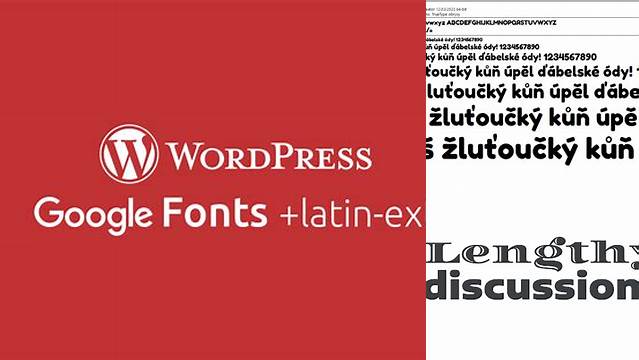
Google Fonts: Latin Extended Guide
Hey guys! Ever wondered about those cool fonts you see online and how they support different languages? Today, we're diving deep into Google Fonts and specifically looking at the Latin Extended character set. This is super important if you want your website or project to be truly global and accessible. Let's get started!
What are Google Fonts?
Before we jump into the Latin Extended stuff, let’s quickly talk about what Google Fonts actually are. Google Fonts is a library of over a thousand free, open-source font families. This means you can use these fonts for anything – your website, your presentations, your YouTube thumbnails, absolutely anything! The best part? They're super easy to use. You can either download them and install them on your computer, or you can link to them directly from Google's servers, meaning your website visitors don’t even need to have the fonts installed on their machines. It’s all done seamlessly in the background, making your website look awesome without slowing it down. Google Fonts provides a huge selection of typefaces, from classic serif fonts like Roboto Serif and Oswald, to modern sans-serif options like Open Sans and Lato, and even unique display fonts for special projects. Finding the right font can make a massive difference in how your design feels and communicates, so understanding your options is crucial. Moreover, Google Fonts is constantly being updated with new fonts and features, making it a dynamic resource for designers and developers alike. They are committed to making typography accessible to everyone, which is why it's such a popular choice in the design community.
Why is Latin Extended Important?
Okay, so we know what Google Fonts is, but why should we care about Latin Extended? Well, the basic Latin character set only covers the English alphabet and some punctuation. Latin Extended goes way beyond that. It includes characters used in a bunch of European languages like French, Spanish, German, Polish, and many more. Imagine you're building a website and you want to reach an audience in these countries. If you don't use Latin Extended, you might end up with weird boxes or question marks instead of letters like é, à , ç, or ñ. Not a good look, right? Using fonts that support Latin Extended ensures your text displays correctly for millions of people around the world, making your content accessible and professional. Latin Extended is essentially a set of additional characters and diacritics (those little marks above or below letters) that are essential for many languages. These diacritics change the pronunciation of the letters and are crucial for correct spelling and grammar. So, if you're serious about creating content that resonates with a global audience, ensuring your fonts support Latin Extended is non-negotiable. Think of it as showing respect for different languages and cultures, which can significantly boost your brand's credibility and reach.
Understanding Character Sets
To really grasp Latin Extended, we need to talk about character sets in general. A character set is simply a collection of characters – letters, numbers, symbols, and punctuation – that a font supports. Think of it like a toolbox; each tool (character) serves a specific purpose. The basic Latin character set, also known as ASCII, includes the English alphabet, numbers 0-9, and some common symbols. But that's just the tip of the iceberg. Latin Extended adds a whole bunch of extra characters to this set, allowing you to write in many different languages. Understanding character sets helps you choose the right fonts for your project. If you're only writing in English, a basic Latin font might be fine. But if you need to support multiple languages, you'll definitely want to look for fonts with Latin Extended support. Character sets are the foundation of how text is displayed on computers and the internet. Without them, we wouldn't be able to communicate effectively across different languages and platforms. Different encoding standards, such as UTF-8, play a crucial role in how these character sets are implemented and displayed. UTF-8 is a widely used encoding standard that supports a vast range of characters, including those in the Latin Extended set, making it the go-to choice for web developers who want to ensure their content is accessible globally.
Latin Extended A vs. Latin Extended B
Okay, things might get a little technical here, but stick with me! Latin Extended isn't just one big thing; it's actually divided into different subsets, mainly Latin Extended-A and Latin Extended-B. Latin Extended-A is the more common of the two, and it includes characters used in most Western and Central European languages, like those mentioned earlier (French, Spanish, German, Polish, etc.). Latin Extended-B is less common and includes characters used in some Eastern European languages, as well as some historical and less widely used alphabets. So, which one do you need? For most projects, Latin Extended-A will be sufficient. But if you're working with a language that uses characters from Latin Extended-B, you'll need to make sure your font supports it. It’s always a good idea to check the specific requirements of the languages you're targeting to ensure you're using the correct character set. Understanding the differences between Latin Extended-A and Latin Extended-B can save you a lot of headaches down the road. Imagine spending hours designing a website, only to realize that your font doesn't support a crucial character in one of the languages you need. That's why it's essential to do your research and choose fonts that cover the character sets you need from the outset. Many font providers, including Google Fonts, will clearly indicate which character sets a font supports, making it easier to make informed decisions.
How to Identify Google Fonts with Latin Extended Support
So, how do you actually find Google Fonts that support Latin Extended? It's pretty easy, thankfully! When you're browsing Google Fonts, you'll see a filter option called “Languages.” If you click on that, you’ll see a list of languages and character sets, including Latin Extended. Just check the box next to “Latin Extended,” and Google Fonts will filter the results to show you only fonts that support it. You can also click on a specific font and look at the “Character set” information to see exactly which characters it includes. This is a super handy feature because it saves you time and ensures you’re choosing fonts that will work for your needs. Remember, even if a font looks beautiful, it's useless if it doesn't support the characters you need. Take the time to check the character set support before you commit to a font. Another tip is to test the font with actual text in the languages you're targeting. Copy and paste some text into the font preview on Google Fonts to see how it looks. This will give you a real-world sense of whether the font is a good fit for your project and whether it handles the diacritics and special characters correctly. This hands-on approach can help you avoid potential issues and ensure your text displays perfectly across different languages.
Best Google Fonts for Latin Extended A
Alright, let's get to the fun part: which Google Fonts are actually great for Latin Extended-A? There are tons of amazing options, but here are a few of my personal favorites. First up, we have Roboto. It's a classic sans-serif font that's super versatile and readable, making it a great choice for body text. Then there’s Open Sans, another excellent sans-serif font that’s clean and modern. If you're looking for a serif font, Lora is a beautiful option that's perfect for headings or body text. Lato is another popular choice, known for its clean lines and readability, making it suitable for a wide range of projects. Finally, Montserrat is a bold and stylish sans-serif font that’s great for headlines and titles. These are just a few examples, but they give you a sense of the variety of Latin Extended-A fonts available on Google Fonts. Remember to experiment and find fonts that match the tone and style of your project. Choosing the right font can significantly impact the overall look and feel of your design, so it's worth spending some time exploring your options. Consider factors like readability, visual appeal, and how well the font complements your brand's identity. Don't be afraid to mix and match fonts to create a unique and engaging design. Just make sure to choose fonts that work well together and maintain a consistent visual hierarchy.
Best Google Fonts for Latin Extended B
Now, what about Latin Extended-B? Finding fonts that support this character set can be a bit trickier, but there are still some great options on Google Fonts. DejaVu Sans is a solid choice; it’s a versatile sans-serif font that includes a wide range of characters, including those in Latin Extended-B. Charis SIL is another excellent option, specifically designed for readability and supporting a large number of languages. Gentium Plus is a serif font that's known for its elegance and comprehensive character set support. These fonts might not be as widely used as some of the Latin Extended-A options, but they’re crucial if you need to support languages that use those characters. Working with Latin Extended-B often requires a bit more attention to detail, as these character sets are less commonly supported. Always double-check that your chosen font includes all the characters you need before finalizing your design. Testing your text in different browsers and operating systems is also a good practice to ensure consistent rendering. While the selection of Latin Extended-B fonts on Google Fonts may be smaller, the available options are high-quality and designed to meet the needs of specific languages and writing systems. Choosing the right font can make a significant difference in the legibility and overall appearance of your content.
How to Implement Google Fonts with Latin Extended on Your Website
Okay, you've chosen your font, and it supports Latin Extended. Awesome! Now, how do you actually get it on your website? It's actually super easy. Google Fonts provides a snippet of code that you can copy and paste into your website's HTML. This code tells the browser to load the font from Google's servers. You'll usually add this code to the <head> section of your HTML. Then, in your CSS, you can specify the font family you want to use. For example, if you're using Roboto, you would add font-family: 'Roboto', sans-serif; to your CSS. Implementing Google Fonts is designed to be straightforward, even for beginners. The Google Fonts website provides clear instructions and code snippets for each font, making the process seamless. You can also customize the font weights and styles you want to include, such as bold or italic, to optimize your website's performance. By using Google Fonts, you're ensuring that your website visitors see your chosen fonts regardless of whether they have them installed on their computers. This consistency is crucial for maintaining your brand's visual identity and providing a polished user experience.
Optimizing Website Performance with Google Fonts
While Google Fonts are fantastic, using too many fonts or font weights can slow down your website. Nobody wants a slow-loading website, right? To optimize performance, only load the font weights and styles you actually need. For example, if you're only using Roboto in regular and bold, don't load the italic or light versions. Google Fonts lets you select exactly which weights and styles to include in your code snippet, so take advantage of that. Optimizing website performance is crucial for providing a positive user experience and improving your site's search engine ranking. Slow-loading websites can lead to higher bounce rates and lower engagement, so it's essential to take steps to minimize load times. In addition to limiting the number of fonts and weights you use, consider using font-display properties in your CSS to control how fonts are loaded and rendered. These properties allow you to specify fallback fonts and manage the visual impact of font loading on your website's initial render. By carefully managing your font usage, you can ensure your website looks great without sacrificing performance.
H3: Best Practices for Using Latin Extended Google Fonts
Using Latin Extended Google Fonts effectively involves several best practices to ensure optimal performance, readability, and accessibility. These practices include choosing appropriate fonts for your design, optimizing font loading, using font fallbacks, and testing your designs in different environments. Best practices for Latin Extended also involve considering the specific needs of the languages you are supporting, such as using the correct diacritics and special characters. When selecting fonts, it's important to choose fonts that have good Latin Extended support and that render the characters clearly. You should also optimize font loading by only including the font weights and styles that you need and by using techniques such as font-display to control how fonts are loaded and rendered. By following these best practices, you can create typography that is both visually appealing and highly functional.